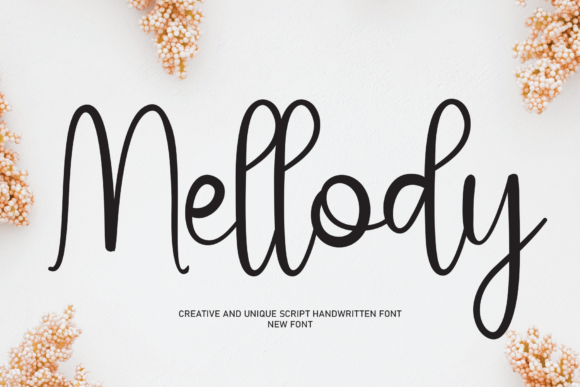
Unleash the Enchantment of Mellody Font: An Ode to Timeless Elegance
In a realm where words dance in perfect harmony, where emotions find their truest expression, there lies a font that weaves its magic, captivating hearts with its ethereal beauty: Mellody Font. This extraordinary script typeface, crafted with meticulous attention to detail by the visionary Strongkeng Old, is a symphony of romance and elegance that will elevate your creative projects to new heights.
Mellody Font is not just a collection of letters; it's an invitation to embark on a journey of self-expression and visual artistry. Its characters, each a work of art in its own right, dance along the baseline with a casual yet refined grace. This captivating font exudes a charm that is both timeless and utterly captivating.
Whether you're a seasoned designer seeking to add a touch of enchantment to your wedding invitations or a budding entrepreneur seeking a unique logo that reflects your brand's personality, Mellody Font is your perfect companion. Its versatility knows no bounds; it lends its enchanting touch to letterheads, titles, stationery, and countless other creative endeavors.
With Mellody Font, you'll find yourself immersed in a world where words take on a life of their own. Its flowing strokes and delicate curves evoke a sense of nostalgia, a reminder of handwritten love letters and timeless tales. It's a font that speaks directly to the heart, stirring emotions and capturing memories in a way that is both profound and deeply personal.
So, dear creative soul, embrace the allure of Mellody Font and let your imagination soar. Allow its magical touch to transform your words into breathtaking masterpieces that resonate with your audience. From the heartfelt vows of a wedding day to the bold statements of a corporate identity, Mellody Font will be your loyal companion, amplifying your message and leaving an indelible mark on the world.